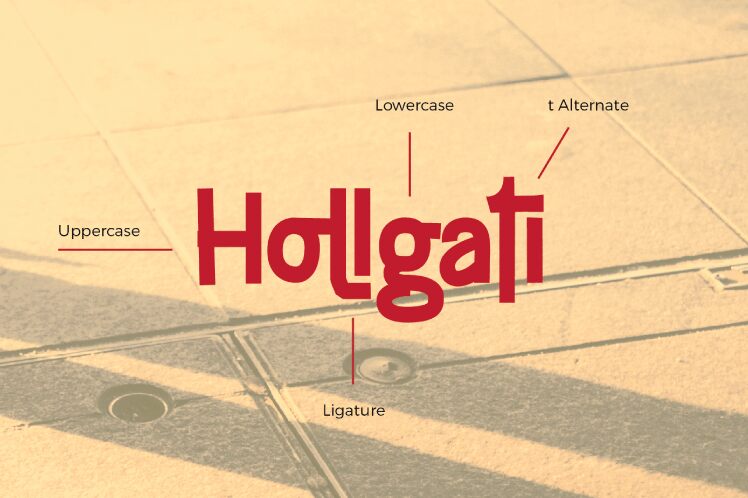
Hollgati, designed by Grontype, is a playful and energetic display font that adds a touch of whimsy to any project.
With its comic style, Hollgati brings life and character to children's books, animated movies, and video game titles. Its bold and vibrant letters make it perfect for creating eye-catching logos or branding materials for entertainment companies. This unique font is also well-suited for greeting cards, posters, and social media graphics that aim to evoke joy and laughter.
Let Hollagti's charm captivate your audience with its delightful personality.